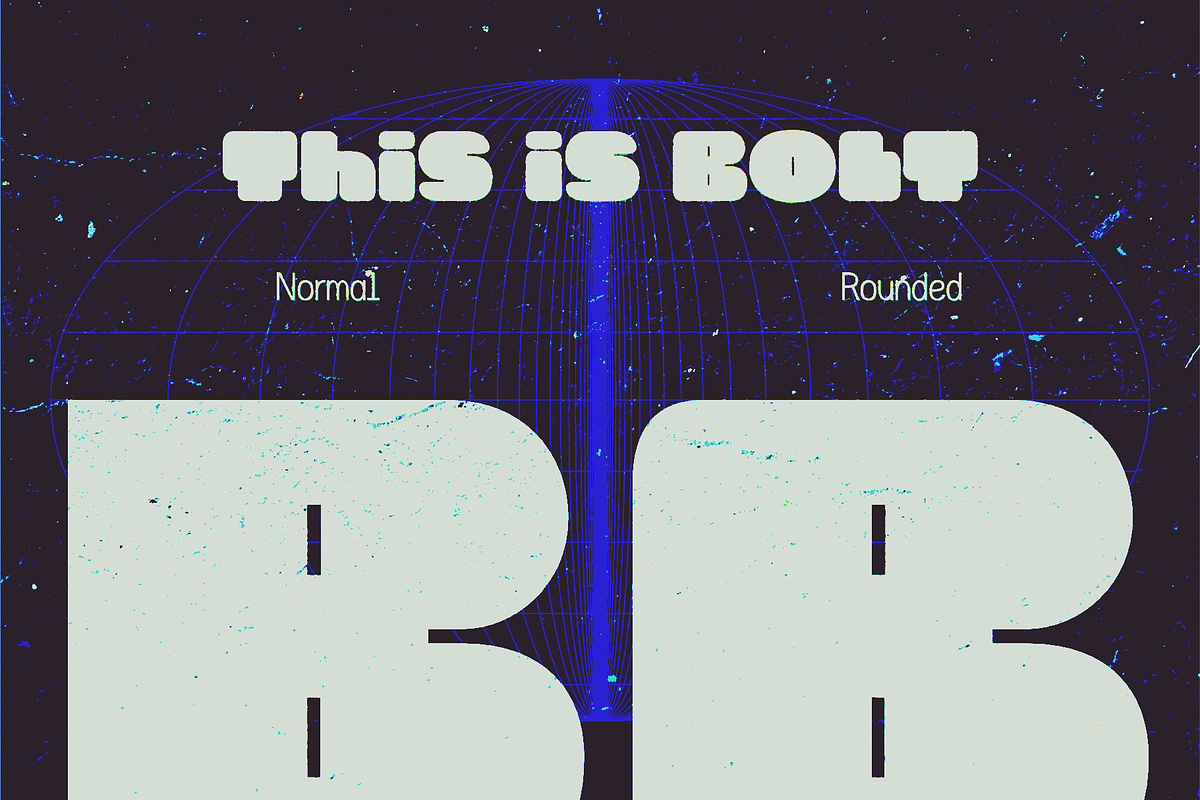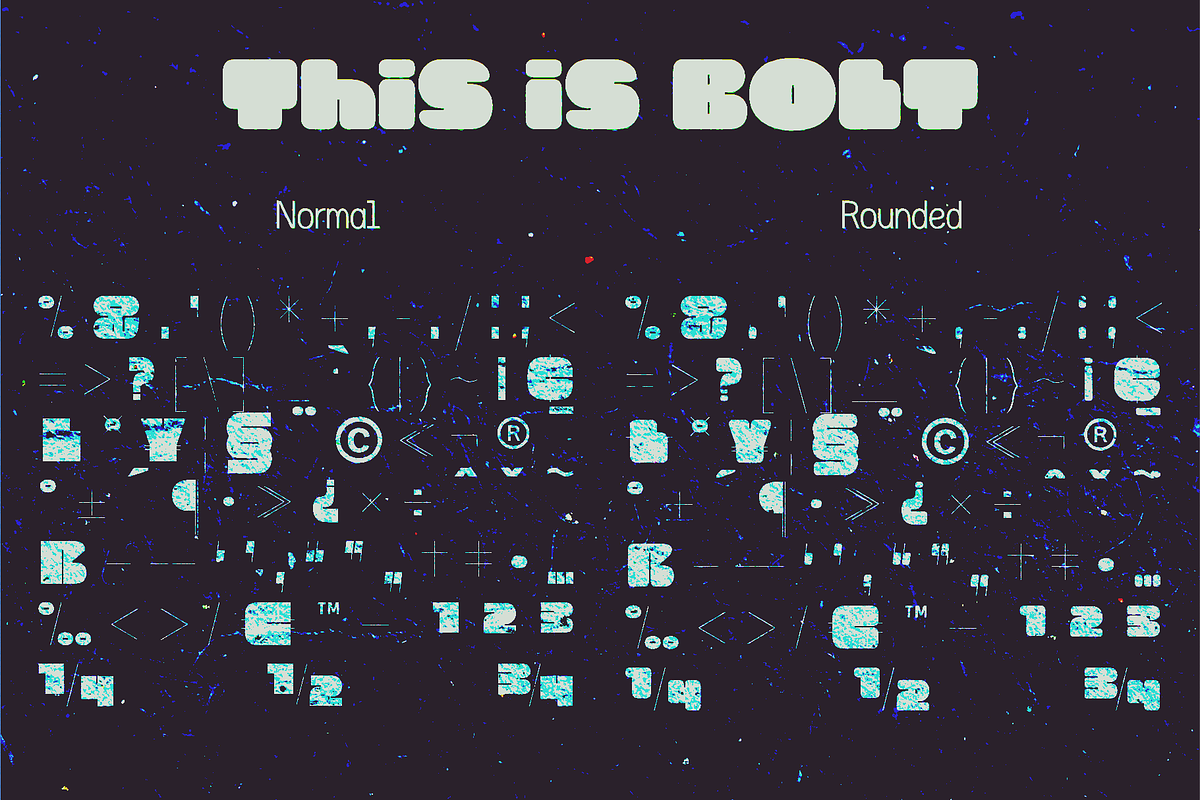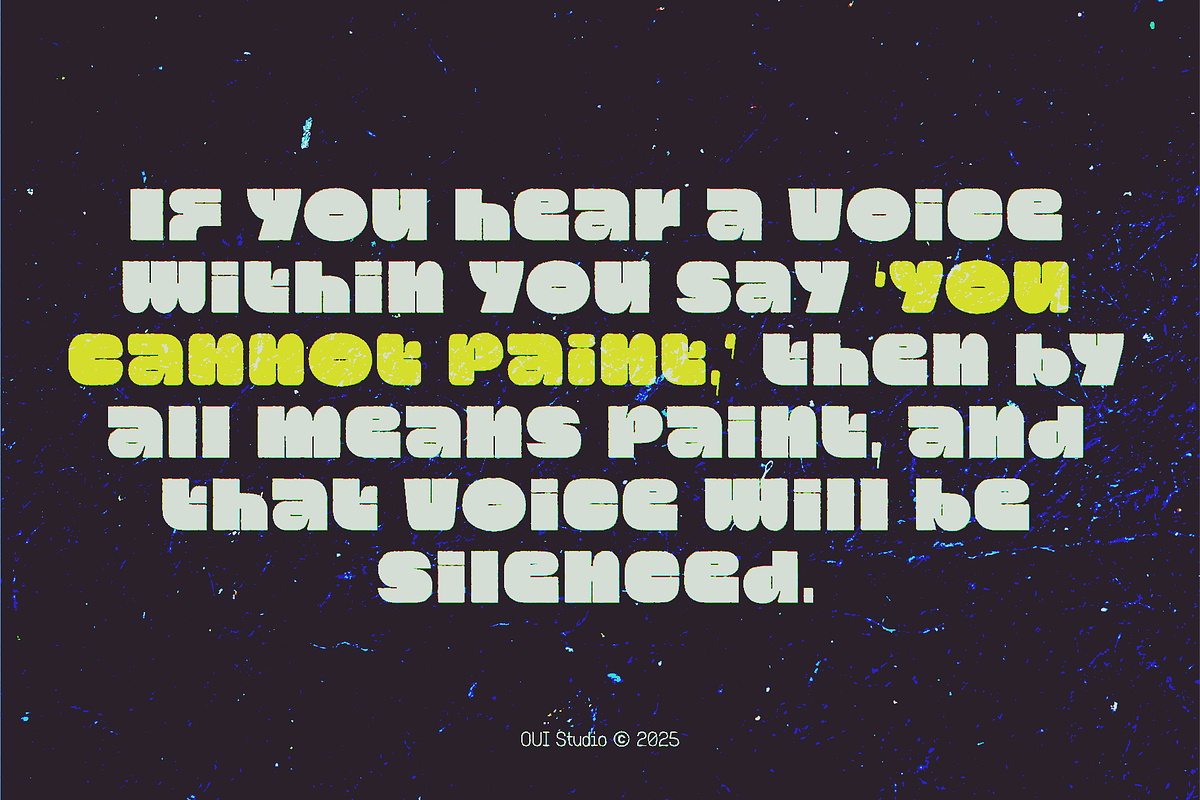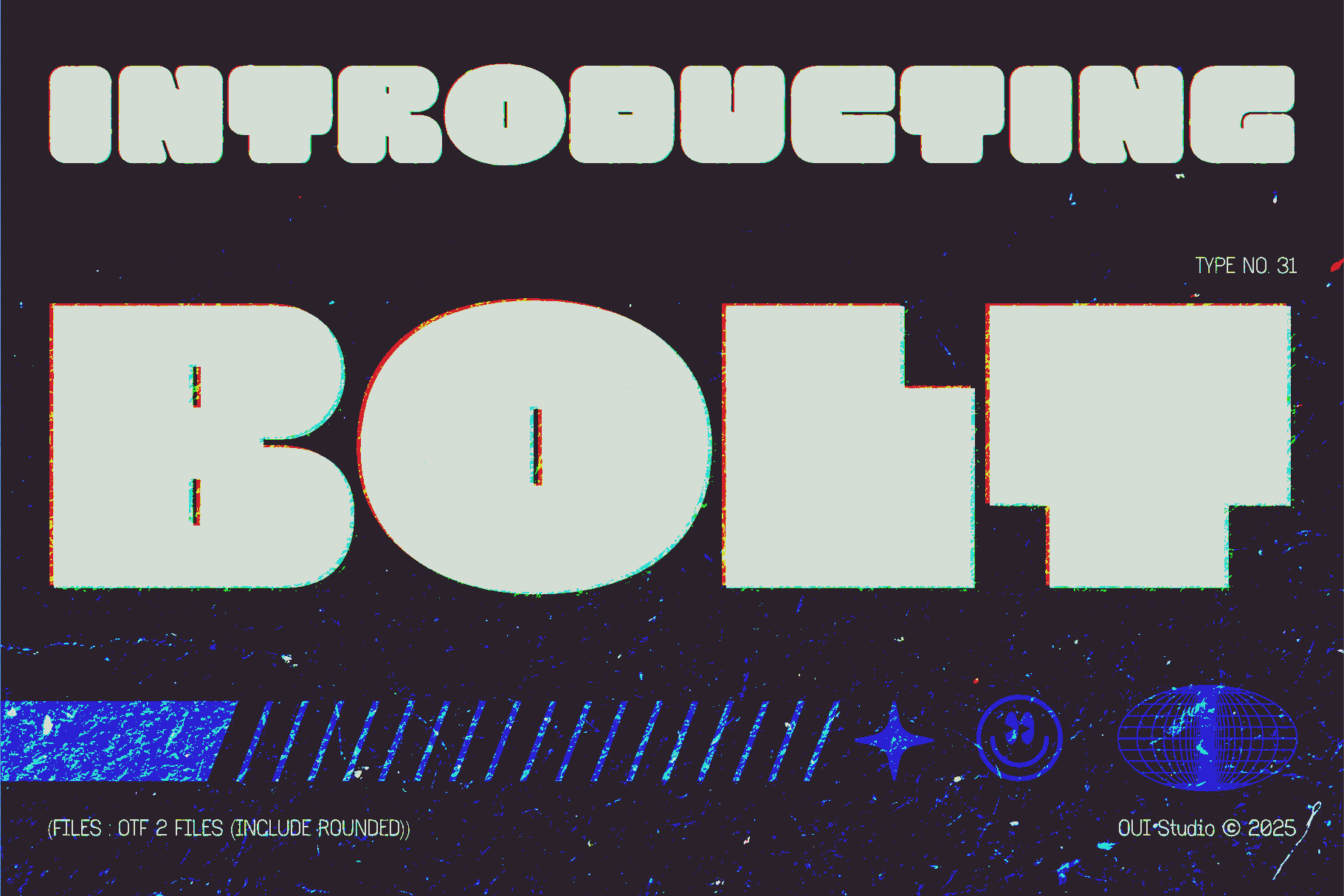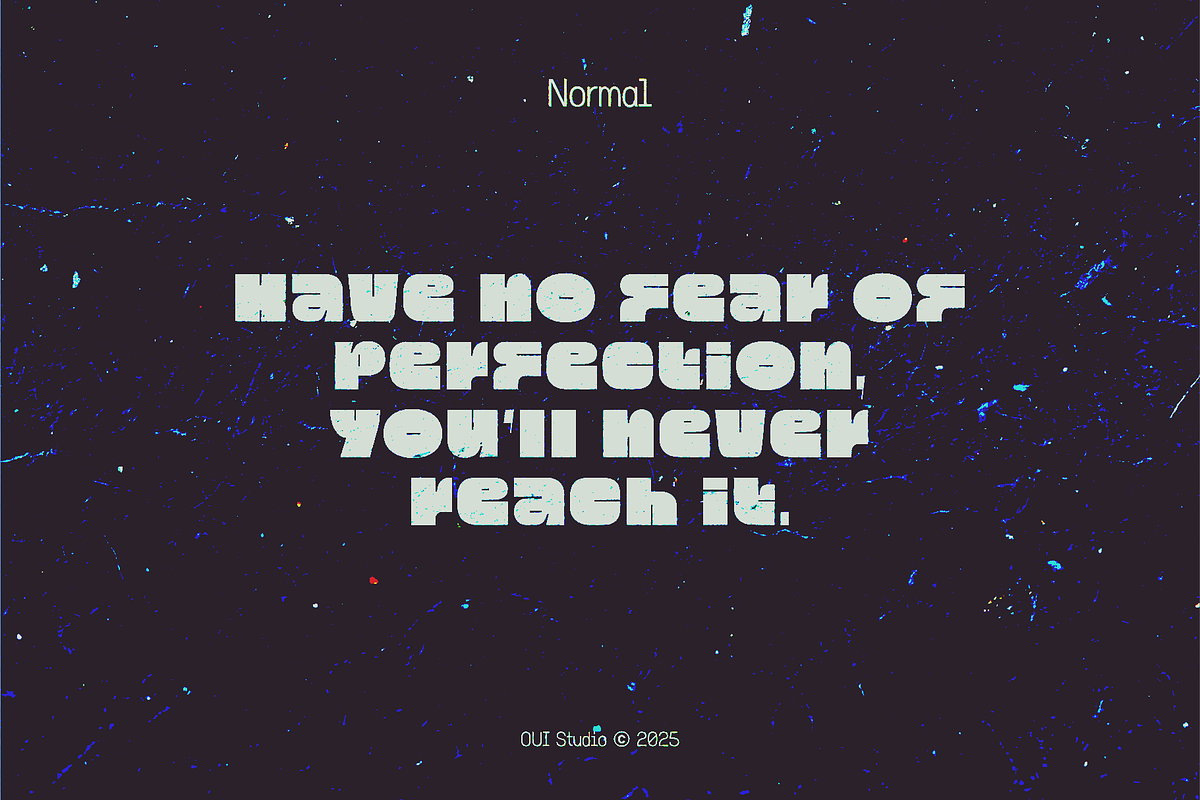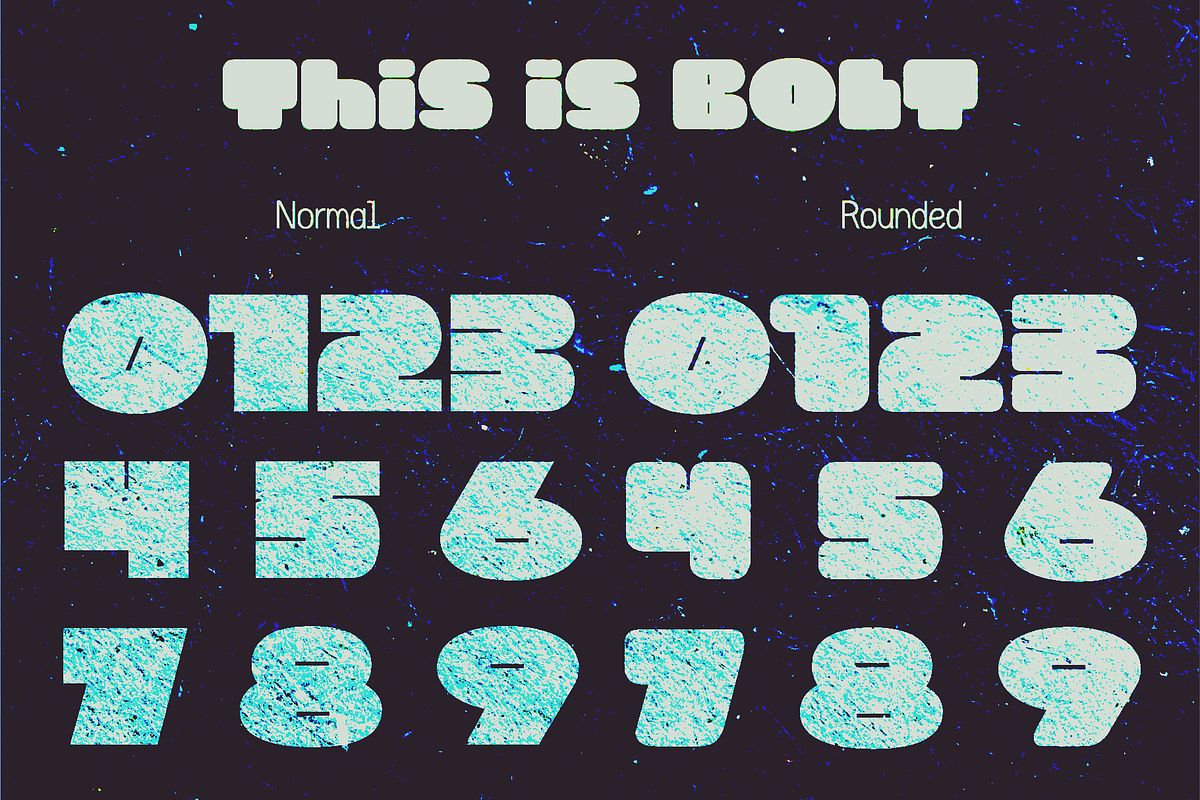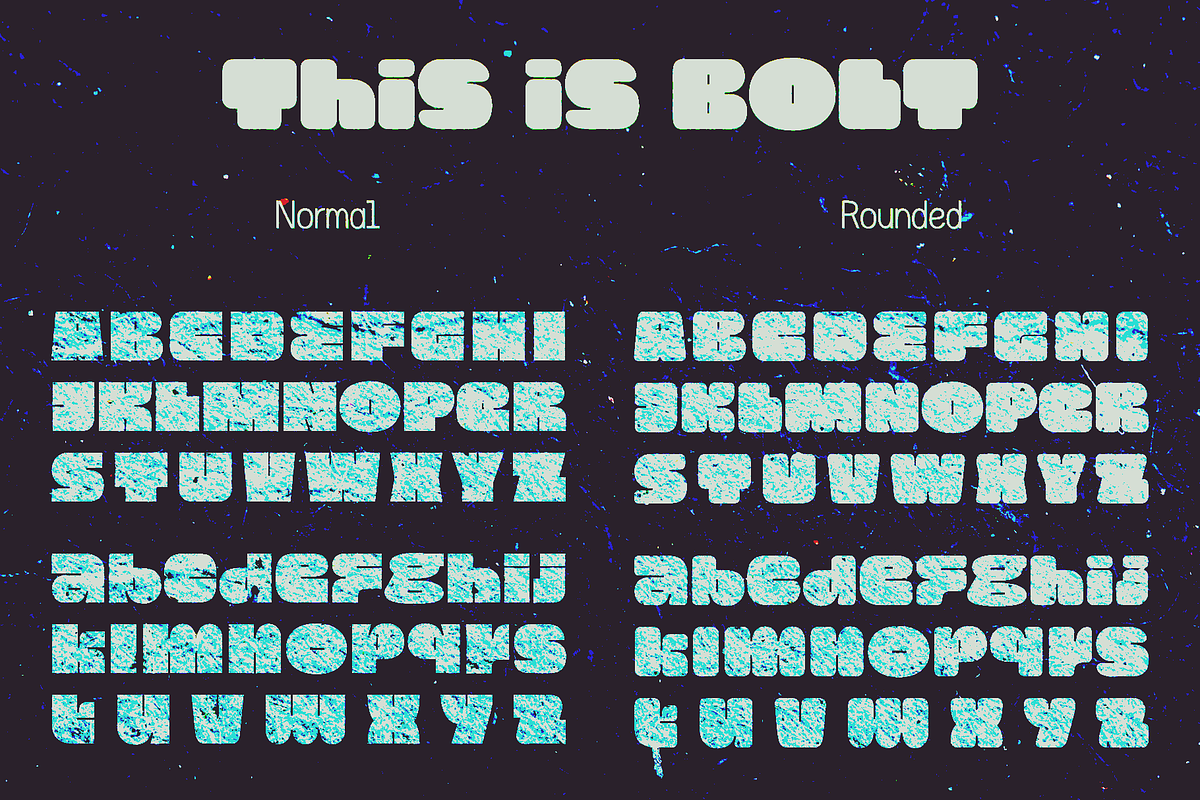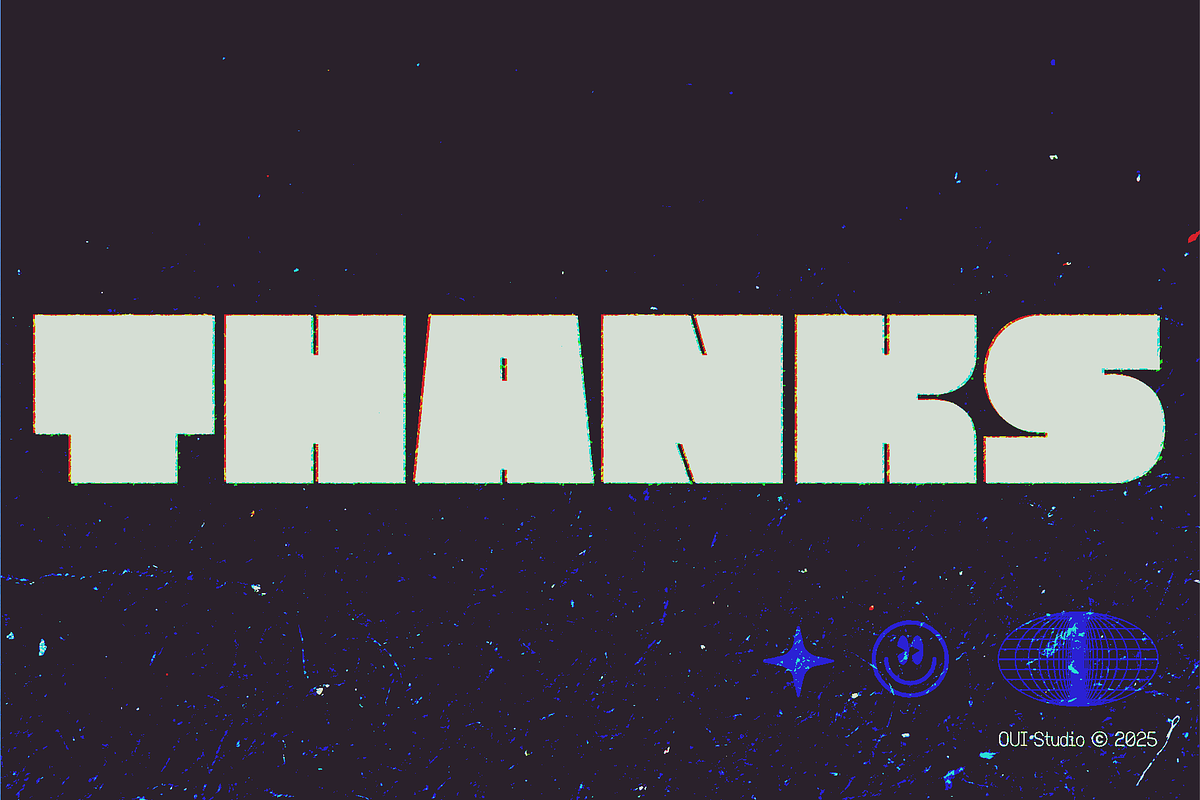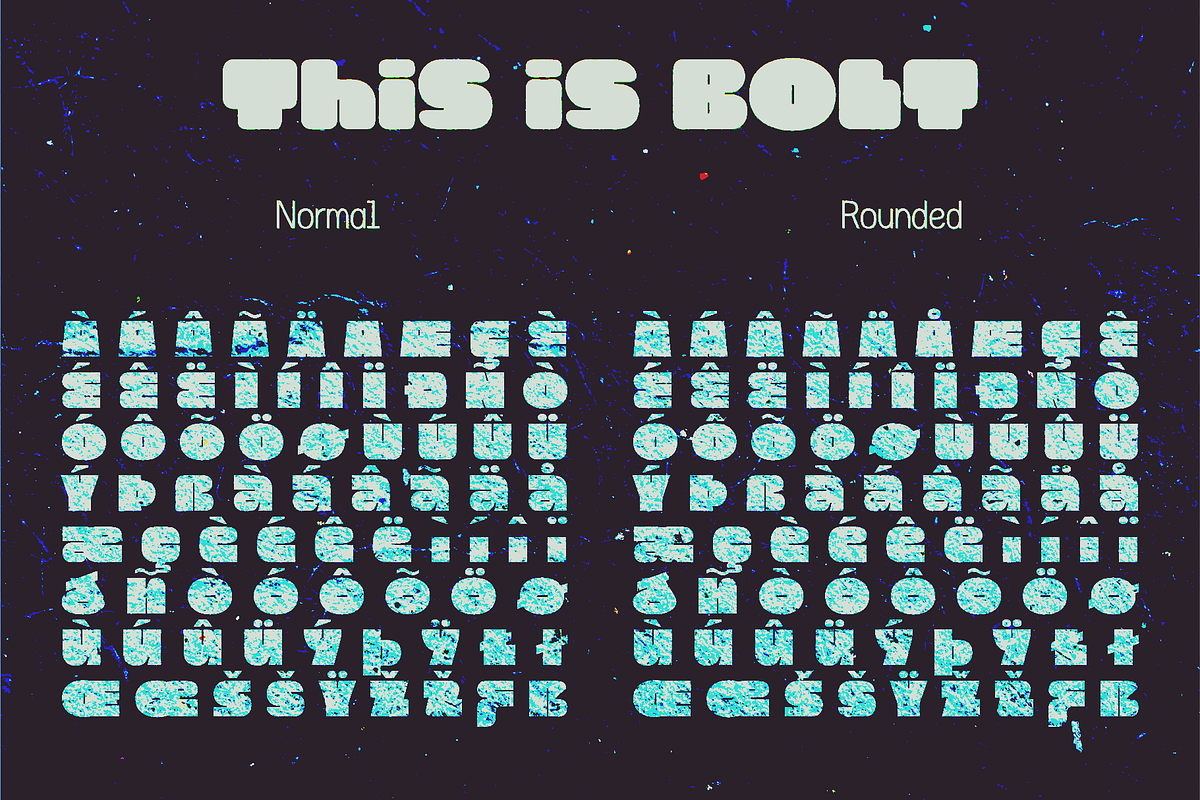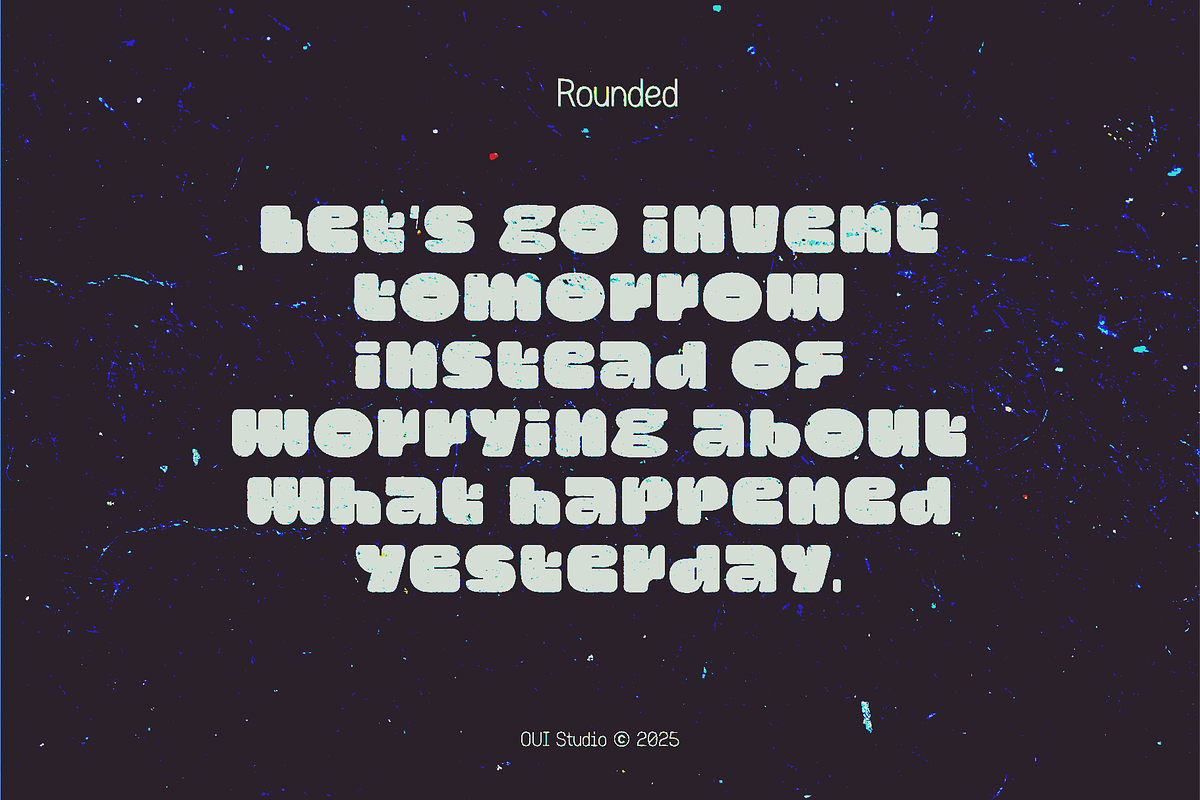
Bolt Geometric Sans Serif Font
Bolt is a geometric sans-serif display typeface designed for impactful visual communication. The typeface is available in two stylistic variants: Bolt Normal and Bolt Rounded. Both styles share the same structural core—characterized by strong verticals, uniform stroke widths, and high optical weight—optimized for maximum legibility and presence at large sizes.
Bolt Normal features sharp terminals and clean, angular detailing that emphasize clarity and precision. It is ideal for applications that require a bold, assertive tone such as headlines, signage, and branding.
Bolt Rounded introduces smoothed corners and softened terminals to the same core structure, offering a more playful and approachable personality without sacrificing readability. This variation is well-suited for digital interfaces, lifestyle branding, and editorial use.
Each style supports modern typographic standards and ensures consistent performance across print and digital platforms. With its clean geometry and adaptable tone, Bolt is a powerful tool for contemporary design systems.